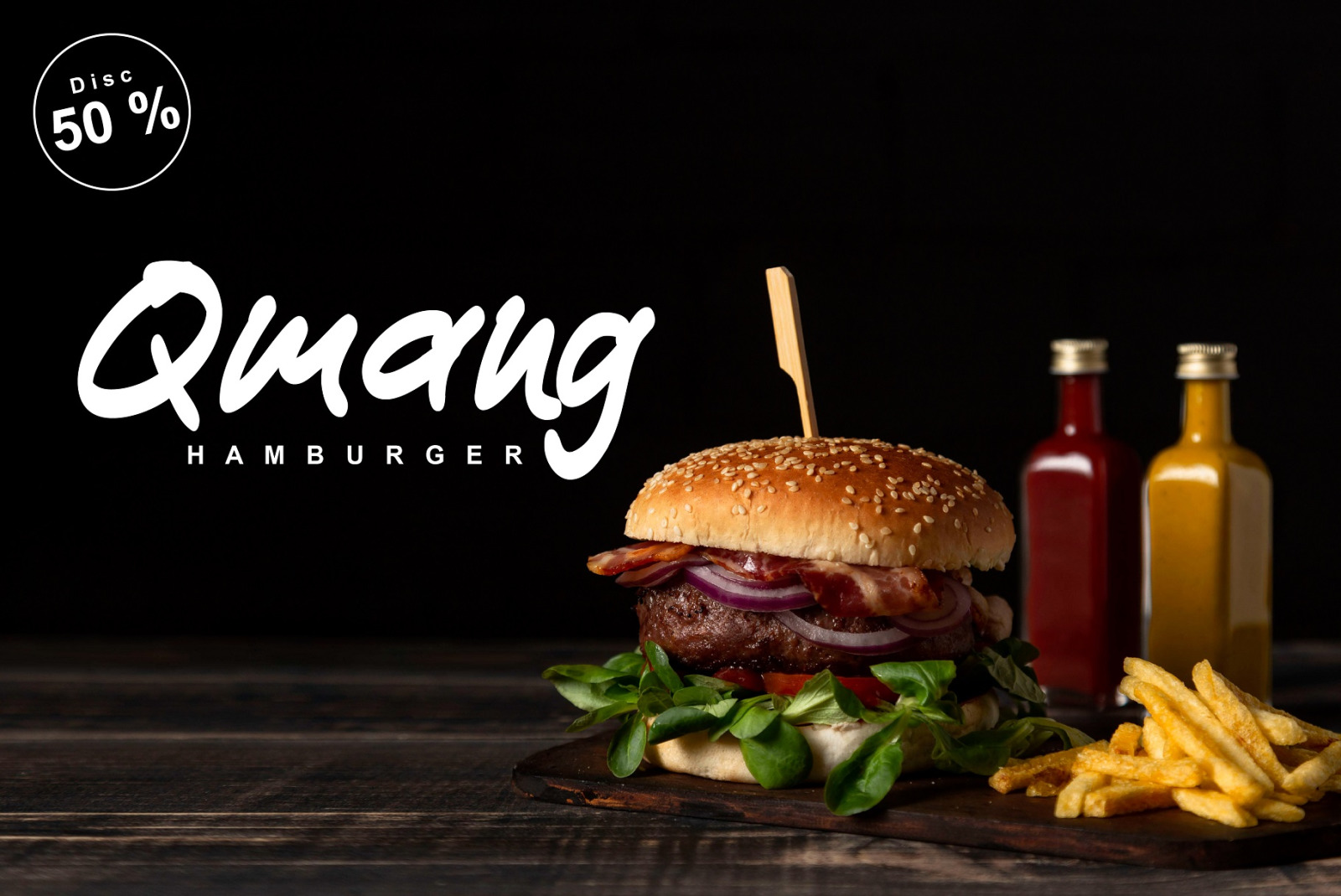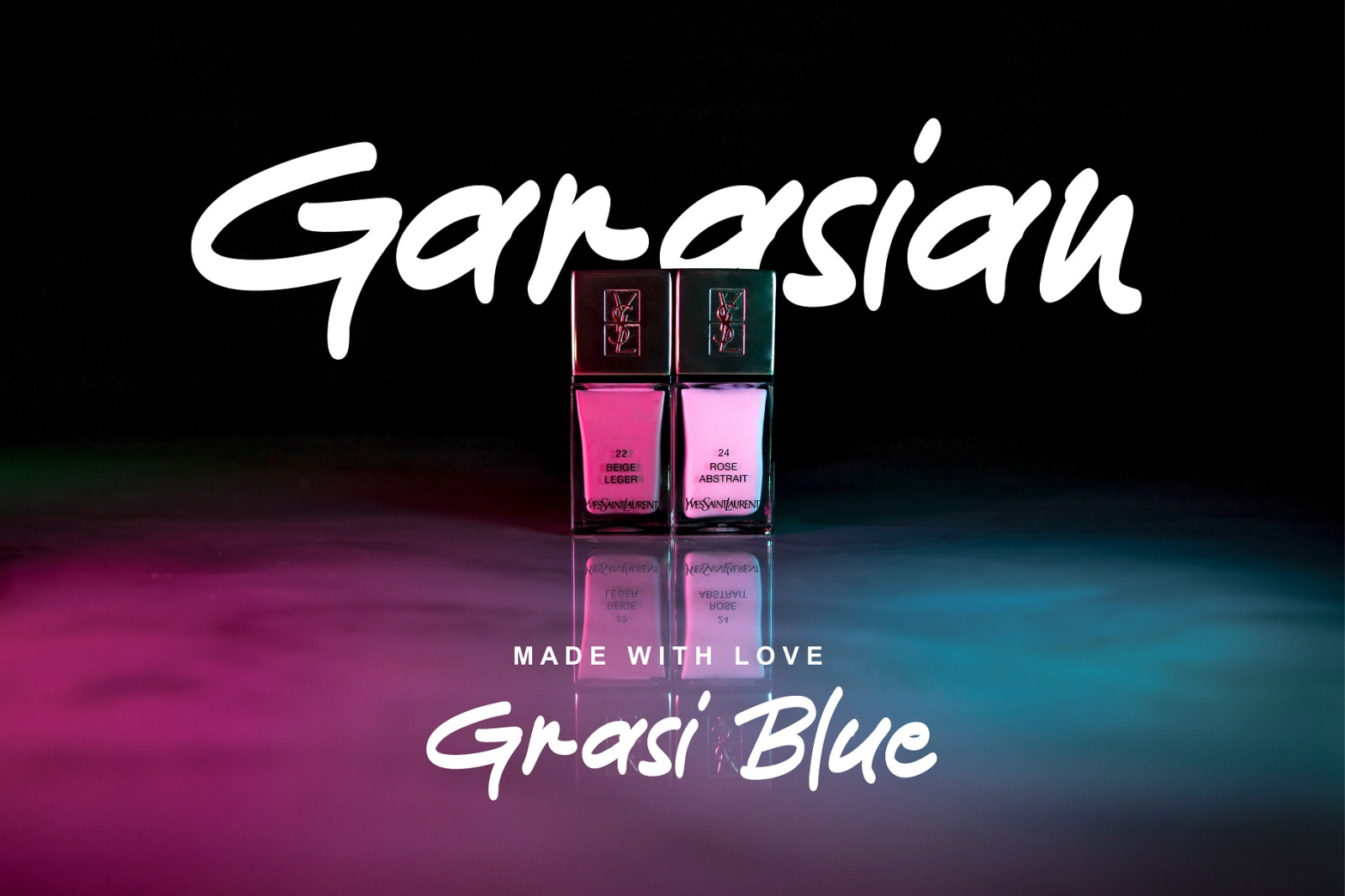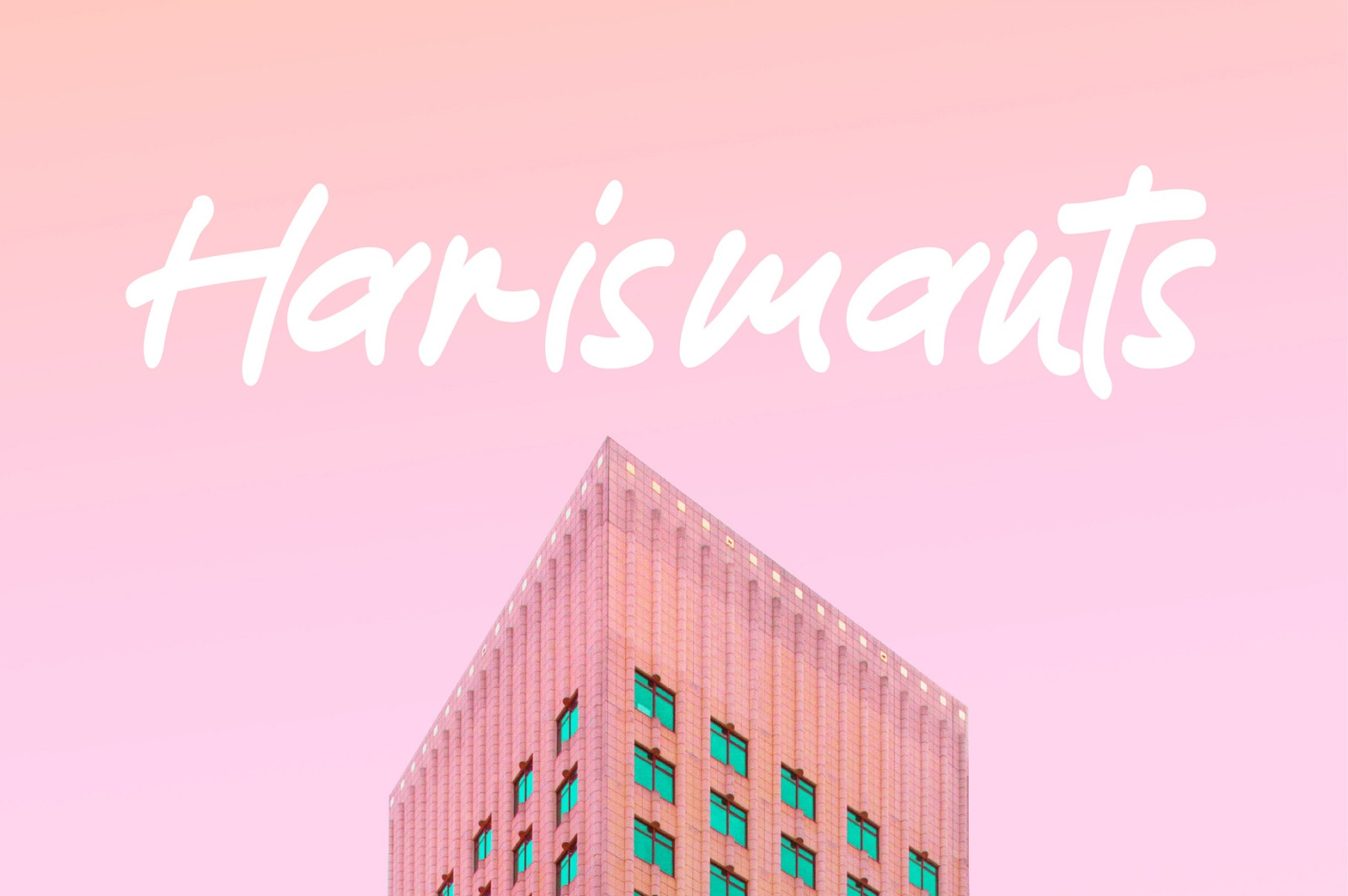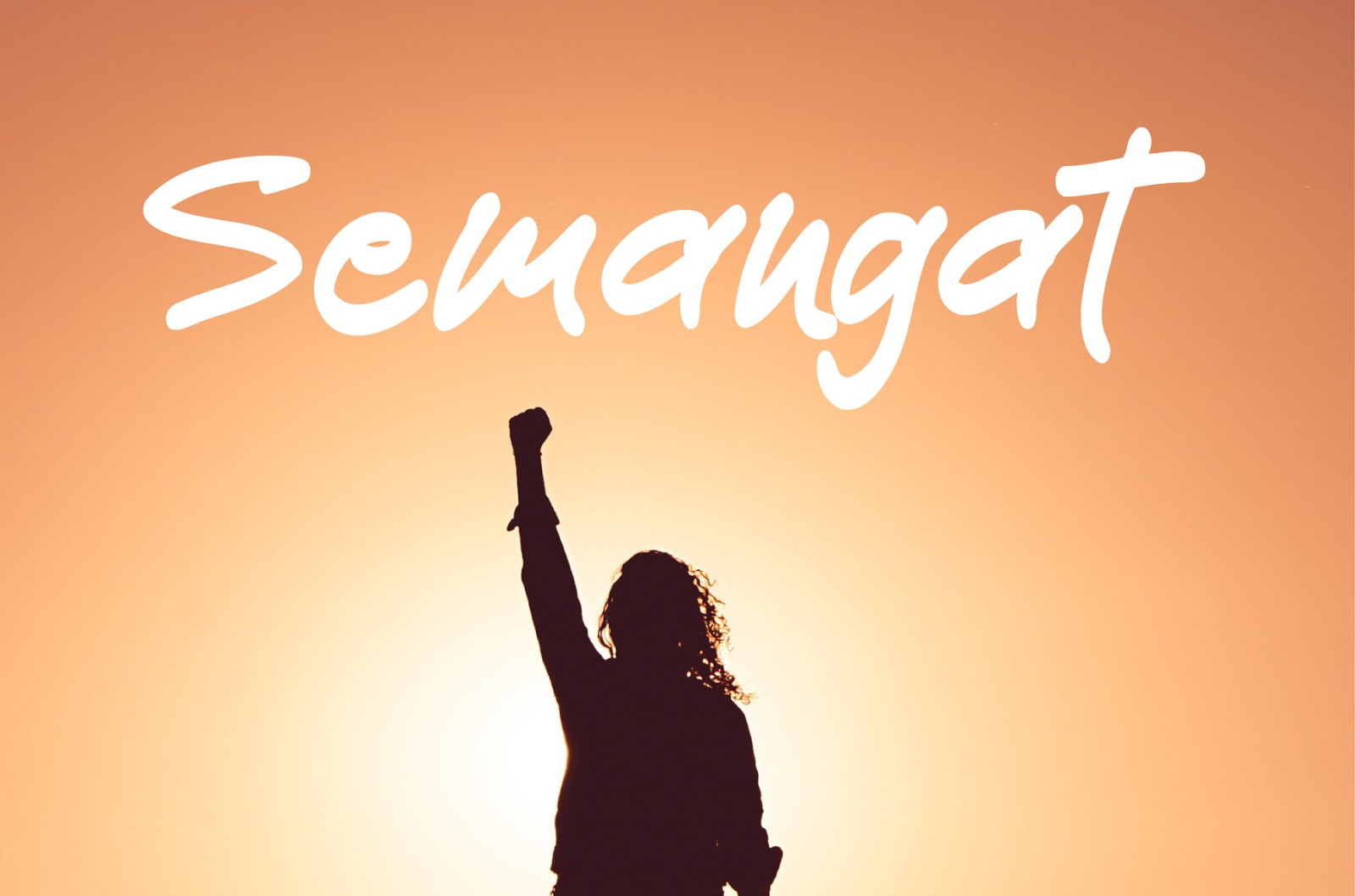
Gamoda Font
Hello,this is Gamoda Font, Give your designs an authentic handcrafted feel. Gamoda Font is perfectly suited to signature, stationery, logo, typography quotes, magazine or book cover, website header, clothing, branding, packaging design and more. Include : Otf Ttf